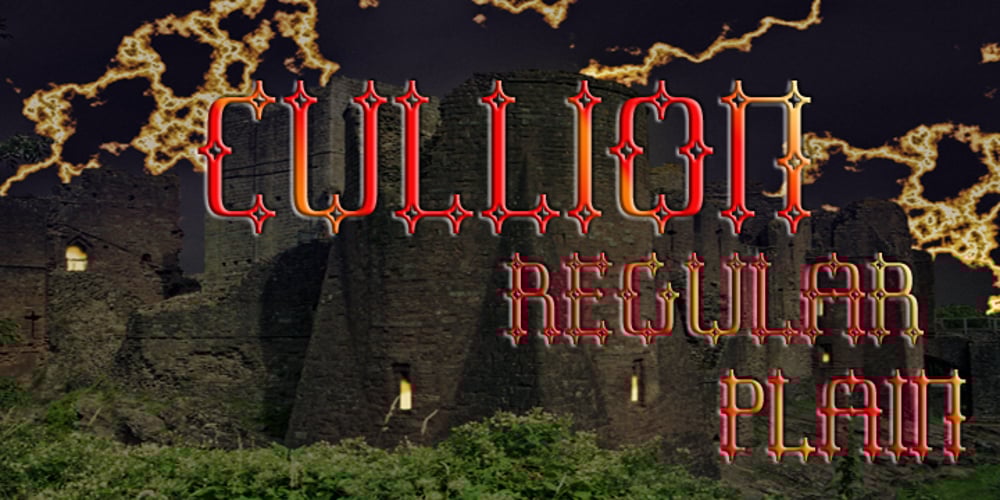
Cullion Font Family was designed by Paul James Lloyd and published by Greater Albion Typefounders. Cullion contains 2 styles and family package options. Cullion is a new departure for Greater Albion, being a modern Fraktur, embodying future trends sch as highly stylised glyphs, a single case of lettering and highly evolved letterforms. At the same time it can trace its inspiration back to blackletter traditions, and is inspired by the sort of ironwork to be found in a medieval portcullis. The resulting typeface can sit happily in traditional, modern or futuristic design work. As the gallery images suggest, it does rather lend itself to work with a ‘horror’ theme, but it could have many other uses too-even in religious work. Cullion is particularly effective in poster headings.